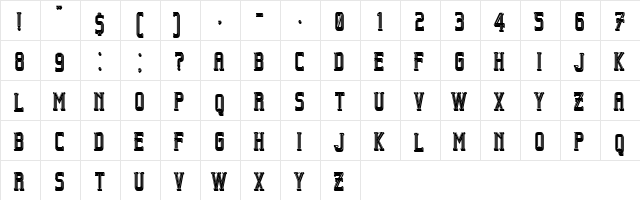
Beholder Outline Filled Regular
Design Context for Beholder Outline Filled Typeface
Beholder Outline Filled brings ornamental detail and strong personality to headlines and identities, where visual impact matters more than quiet functionality.
Font Pairing: Pair with a clean neutral sans-serif for body copy to let Beholder Outline Filled's character lead without overwhelming the composition.
Pro Tip: Treat Beholder Outline Filled as the centrepiece of your typographic hierarchy. One strong heading set in a decorative face can carry an entire layout.